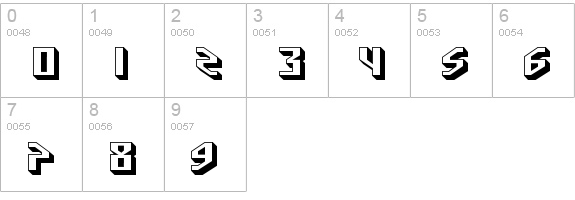
SF Funk Master Font Details
The SF Funk Master font is a vibrant and bold typeface that exudes a funky and energetic vibe. With its unique and playful design, this font is perfect for adding a touch of fun and personality to any project. From album covers to party invitations, this font will make your text pop and stand out from the crowd. What makes the SF Funk Master font even more appealing is that it is available for free download at FontsMarket.com. This means that you can easily access and use this font without having to spend a dime. Whether you're a graphic designer, a blogger, or simply someone who loves experimenting with different fonts, this free font is sure to become a favorite in your collection. The SF Funk Master font features a wide range of characters, including uppercase letters, lowercase letters, numbers, and punctuation marks. Its bold and dynamic appearance makes it perfect for headlines, titles, and attention-grabbing text. The smooth curves and sharp angles of each letter create a sense of movement and excitement, adding a touch of funkiness to any design. Whether you're creating a poster for a concert or designing a logo for a music-related business, the SF Funk Master font will bring a fresh and lively feel to your project. Its versatility allows it to be used in a variety of contexts, from retro themes to modern designs. With its bold presence and unique style, this font is sure to make a lasting impression. So why wait? Give your designs a funky twist with the SF Funk Master font, freely available for download at FontsMarket.com. With its eye-catching design and free accessibility, this font is a must-have for anyone looking to add a bit of funk and flair to their typographic creations. Don't miss out on the opportunity to make your text come alive with this playful and energetic font. Get your hands on the SF Funk Master font today and let your creativity soar!